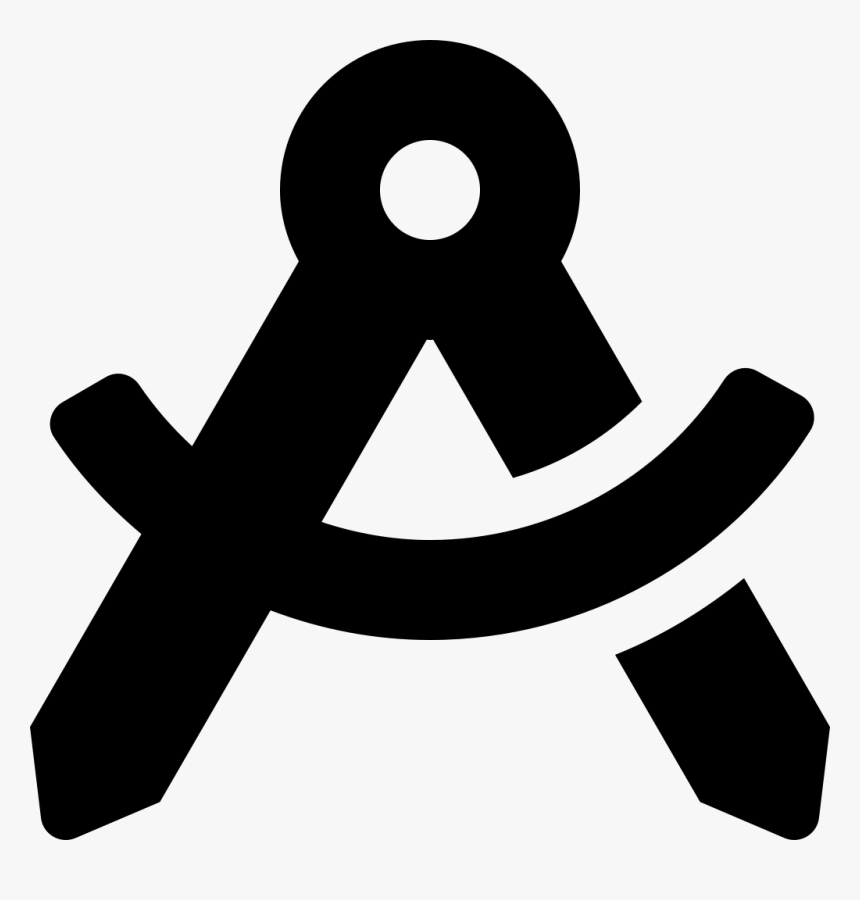
Download in the solid style. Font awesome 5 free solid generated by svg2ttf from fontello project. Make a bold statement, even in small sizes.
Font awesome 5 free solid font. Make a bold statement, even in small sizes. Atlas in the solid style.